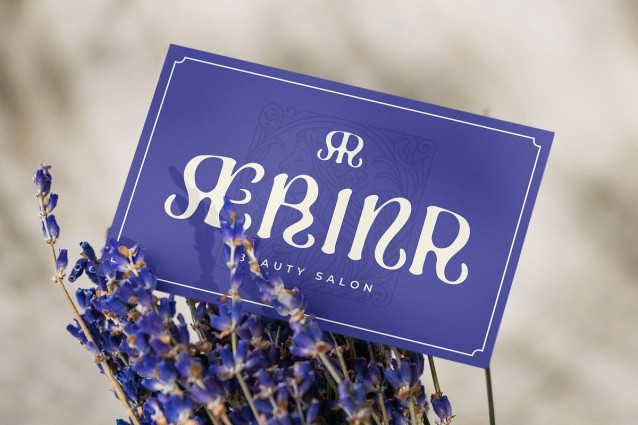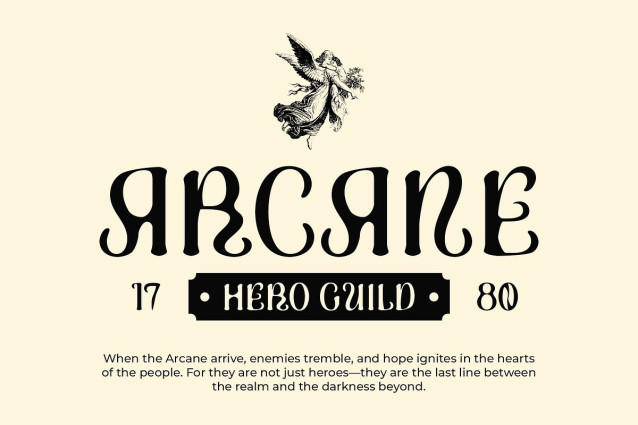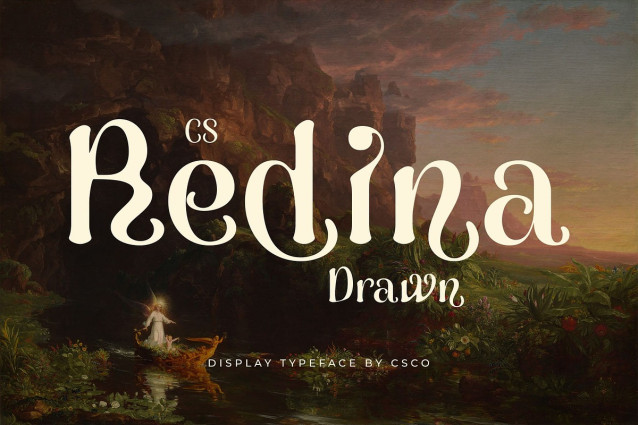
CS Redina Drawn Font is a fantasy display font featuring clean yet imaginative lines that create a fun, cheerful, and dynamic impression. The subtle drawn effect adds a handmade texture, giving each character individuality and artistic flair.
Handmade Texture for Lively Expression The drawn detailing introduces a tactile, handcrafted quality, making this artistic and handmade font feel energetic and expressive. Each letter comes alive with unique personality, transforming playful shapes into visually engaging typography.
Funky and Creative Style With its whimsical, fantasy-inspired forms, this unique and eye-catching font delivers a lively and vibrant look. The combination of playful curves and artisanal touches ensures the font stands out, capturing attention while maintaining readability and charm.
Ideal for Fun and Unique Projects Perfect for posters, branding, music designs, or creative projects, this creative and whimsical font brings character and energy to any design. Its playful fantasy shapes and handcrafted nuances make it an excellent choice for projects that want to appear fun, bold, and visually captivating.
Elevate Designs with Artistic Playfulness This energetic and vibrant font combines imaginative letterforms, manual texture, and whimsical styling to create a font that radiates energy and creativity. It’s a versatile typeface that adds fun, uniqueness, and an attention-grabbing presence to every project.